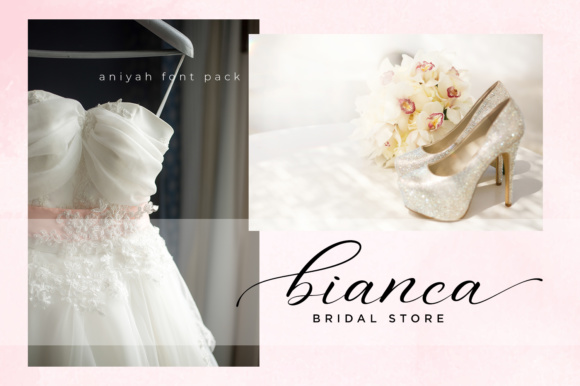
Aniyah Script Font
db-ku.com - Script & Handwritten -- The Aniyah is a beautiful calligraphy script. It has a natural, handwritten and modern style. Perfect for weddings, branding, logos and quotes.